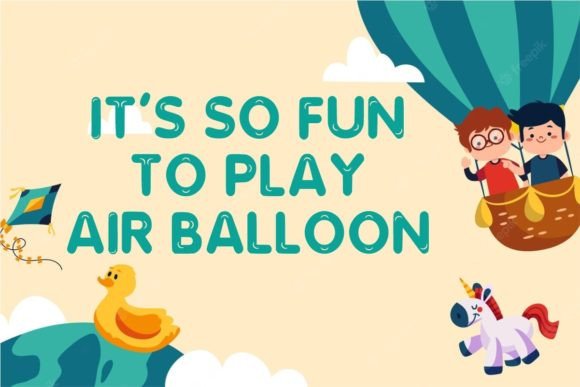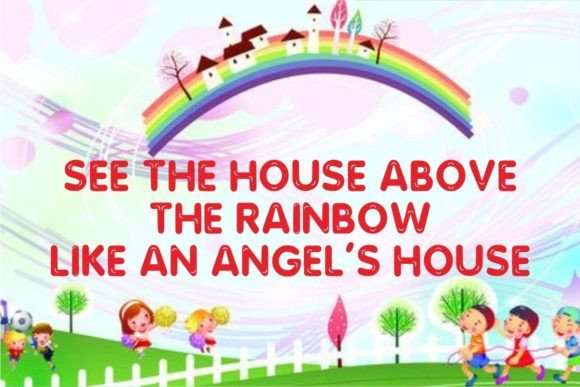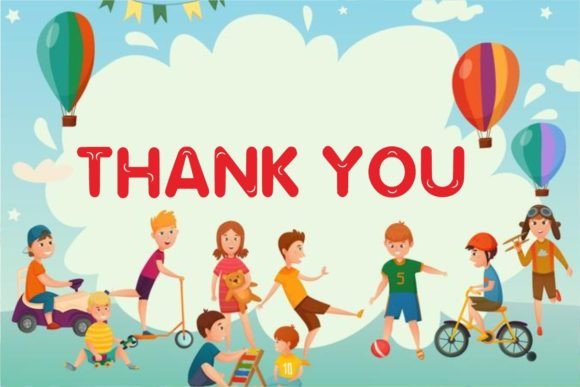
Baby Kids Font: The Perfect Choice for Kid-Themed Designs
Are you looking for a font that can add a touch of fun and friendliness to your designs? Look no further than the Baby Kids font! This adorable display font is perfect for kid-themed designs, school projects, and any other creative endeavor that requires a playful and youthful vibe.
What Makes Baby Kids Font So Special?
Baby Kids is a fun and friendly display font that features cute, friendly, and easy-to-read characters. The font’s design is carefully crafted to appeal to kids and adults alike, making it an excellent choice for a wide range of applications. Whether you’re creating a logo, a poster, or a digital graphic, Baby Kids font is sure to bring a smile to your audience’s faces.
Key Features of Baby Kids Font
- Cute and Friendly Characters: Each character in the Baby Kids font is designed to be adorable and approachable, making it perfect for kid-themed designs.
- Easy to Read: Despite its playful nature, the Baby Kids font is surprisingly easy to read, making it suitable for use in a variety of contexts, from headings to body text.
- Display Font: Baby Kids is a display font, which means it’s designed to make a statement. Use it to add a pop of personality to your designs and make them stand out.
Uses for Baby Kids Font
The Baby Kids font is incredibly versatile, and its uses are endless. Here are a few ideas to get you started:
- Kid-Themed Designs: From birthday party invitations to kids’ clothing and toys, Baby Kids font is the perfect choice for any design aimed at kids.
- School Projects: Add a playful touch to school projects, such as posters, presentations, and reports, with the Baby Kids font.
- Digital Graphics: Use Baby Kids font to create engaging digital graphics, such as social media posts, blog headers, and email newsletters.
- Logo Design: Create a fun and memorable logo for your kid-friendly business or brand with the Baby Kids font.
Why Designers and Crafters Love Baby Kids Font
Designers and crafters love the Baby Kids font for many reasons. Here are a few:
- Unique and Playful: The Baby Kids font offers a unique and playful alternative to more traditional fonts, allowing designers and crafters to add a touch of personality to their work.
- High-Quality Design: The Baby Kids font is designed to high standards, ensuring that it looks great in a variety of contexts and resolutions.
Tips for Using Baby Kids Font
Here are a few tips for getting the most out of the Baby Kids font:
- Use it Sparingly: While the Baby Kids font is fun and playful, it can be overwhelming if used excessively. Use it sparingly to add a touch of personality to your designs.
- Pair it with Other Fonts: Experiment with pairing the Baby Kids font with other fonts to create a unique and visually appealing combination.
- Experiment with Colors: The Baby Kids font looks great in a variety of colors, so don’t be afraid to experiment and find the perfect hue for your design.
In conclusion, the Baby Kids font is a fun and friendly display font that’s perfect for kid-themed designs, school projects, and any other creative endeavor that requires a playful and youthful vibe. With its cute and friendly characters, easy-to-read design, and versatility, it’s no wonder that designers and crafters love this font. So why not give it a try and add a touch of fun and personality to your designs?